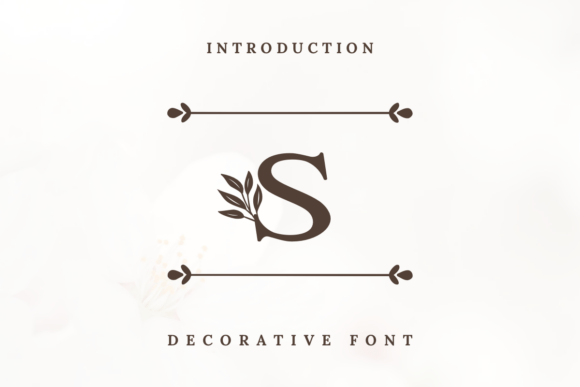
Everleaf Monogram Font: Elevate Your Creativity with this Gorgeous Decorative Font
Are you looking for a unique and stylish font to add a personal touch to your writing, designs, or projects? Look no further than the Everleaf Monogram Font, a beautiful decorative font that can elevate your creativity and take your work to the next level. In this article, we’ll explore the features and benefits of the Everleaf Monogram Font, and show you how to use it to create stunning designs, from notes and diaries to greeting cards, banners, and more.
What is Everleaf Monogram Font?
Everleaf Monogram Font is a gorgeous decorative font, designed to add a touch of elegance and sophistication to your writing and designs. With its unique and intricate monogram style, this font is perfect for creating eye-catching and memorable designs that stand out from the crowd.
- Decorative style: Everleaf Monogram Font features a beautiful, intricate monogram design that adds a touch of elegance to your writing and designs.
- Versatile: This font can be used for a wide range of projects, from notes and diaries to greeting cards, banners, and more.
Uses of Everleaf Monogram Font
Everleaf Monogram Font is a versatile font that can be used for a wide range of projects, including:
- Notes and diaries: Add a personal touch to your notes and diaries with this beautiful decorative font.
- Greeting cards: Create stunning greeting cards for special occasions, such as birthdays, weddings, and holidays.
- Banners: Use Everleaf Monogram Font to create eye-catching banners for events, promotions, or social media posts.
- Mugs and cards: Add a personal touch to your mugs, cards, and other gifts with this beautiful font.
- Shirts and stationery: Use Everleaf Monogram Font to create unique and stylish designs for shirts, stationery, and other products.
- Social media posts: Elevate your social media posts with this gorgeous decorative font, perfect for creating eye-catching graphics and quotes.
Benefits of Using Everleaf Monogram Font
There are many benefits to using Everleaf Monogram Font, including:
- Unique and stylish designs: This font allows you to create unique and stylish designs that stand out from the crowd.
- Easily readable: Despite its decorative style, Everleaf Monogram Font is easily readable, making it perfect for writing and designs.
- Time-saving: With Everleaf Monogram Font, you can create stunning designs quickly and easily, saving you time and effort.
Tips for Using Everleaf Monogram Font
Here are some tips for using Everleaf Monogram Font:
- Experiment with different colors: Try out different colors and color combinations to add depth and interest to your designs.
- Use it sparingly: Use Everleaf Monogram Font sparingly to add emphasis and create visual interest.
- Pair it with other fonts: Experiment with pairing Everleaf Monogram Font with other fonts to create unique and stylish designs.
- Pay attention to font size: Make sure to adjust the font size to suit your design and ensure that it’s easily readable.
In conclusion, Everleaf Monogram Font is a beautiful decorative font that can elevate your creativity and take your designs to the next level. With its unique and intricate monogram style, this font is perfect for creating eye-catching and memorable designs, from notes and diaries to greeting cards, banners, and more. Whether you’re a designer or non-designer, Everleaf Monogram Font is a versatile and cost-effective solution that can help you create stunning designs quickly and easily.